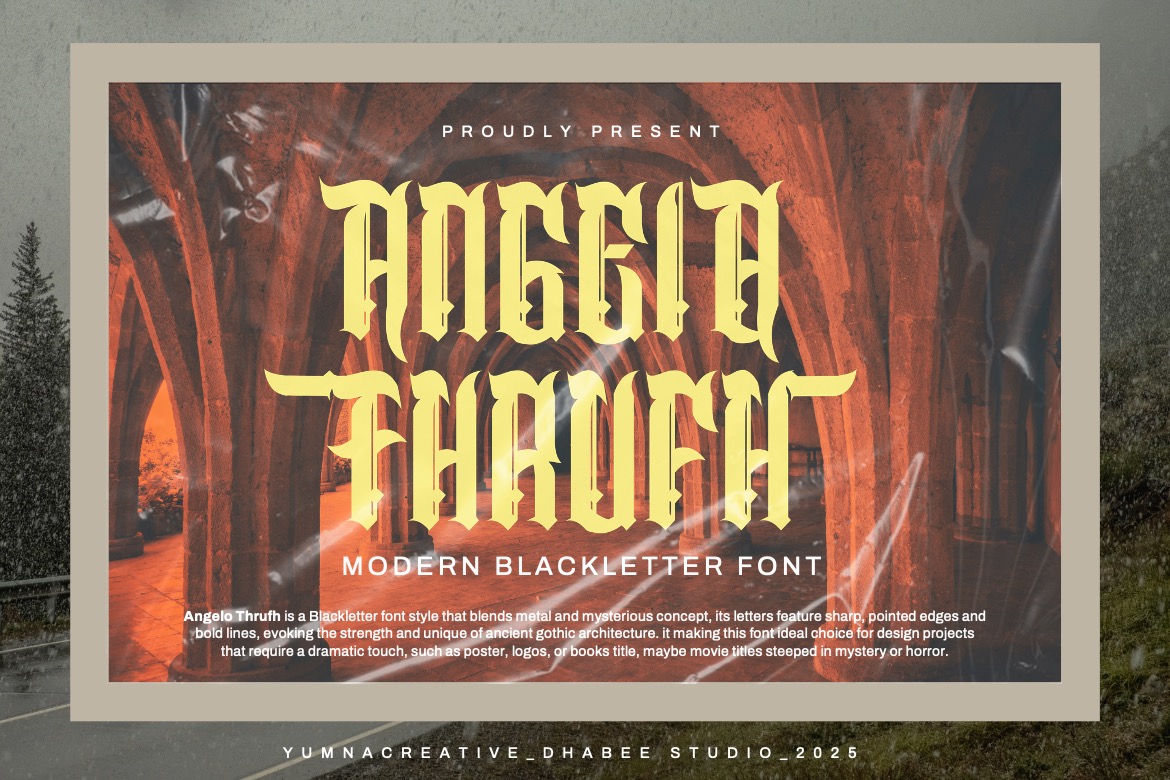
- Angelo Thrufh – Modern Blackletter Font
Introducing **Angelo Thrufh – Modern Blackletter Font**
Angelo Thrufh – Modern Blackletter Font is a bold blackletter fraktur display font that merges traditional Gothic aesthetics with modern impact. Its intricate letterforms feature sharp angles, dramatic strokes, and striking contrasts, embodying strength, authority, and historical charm. The bold weight enhances its commanding presence, making it ideal for designs that demand attention and sophistication